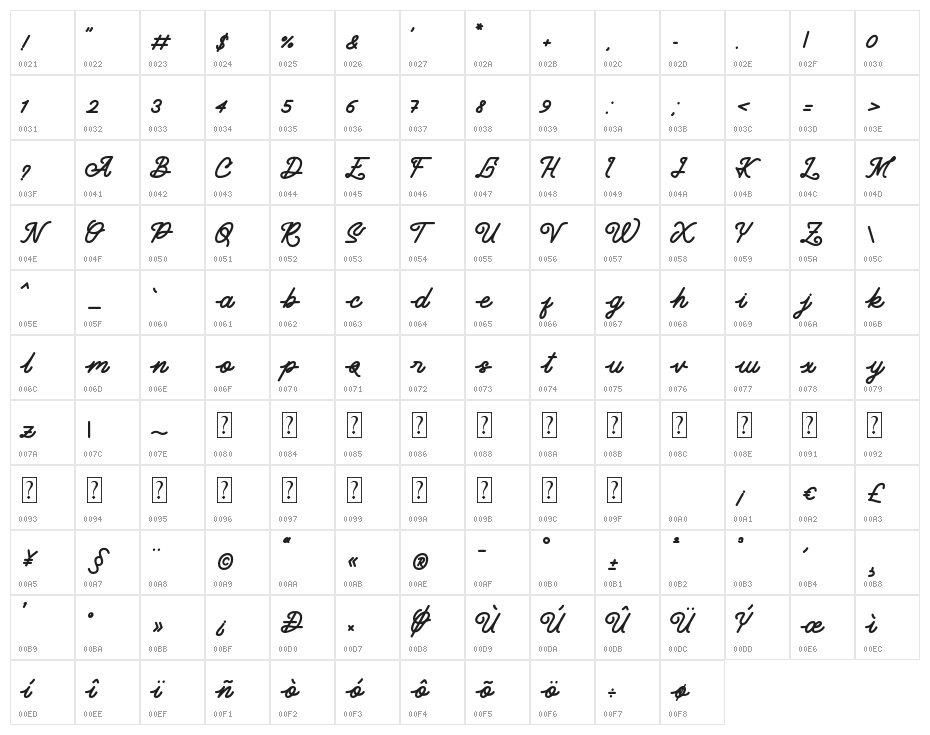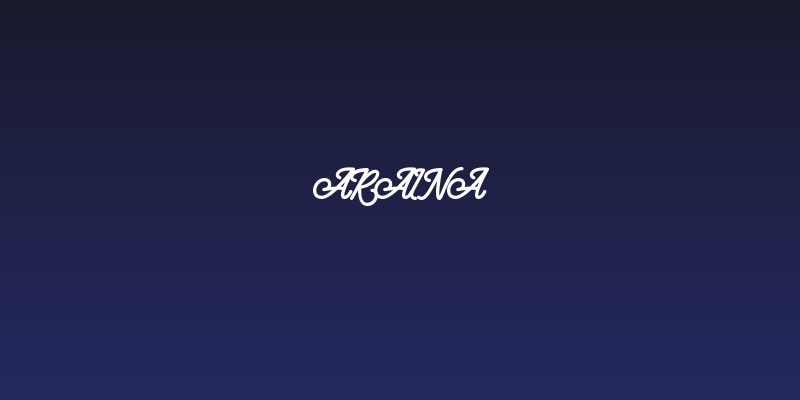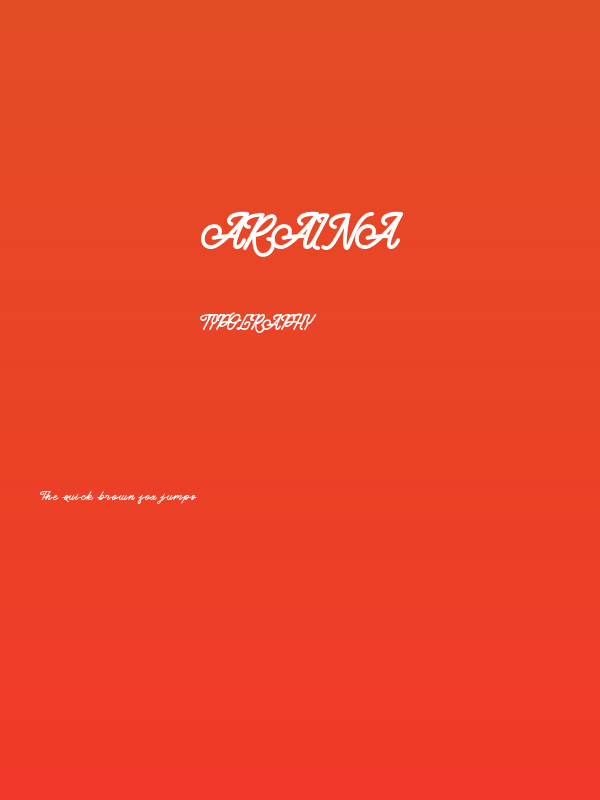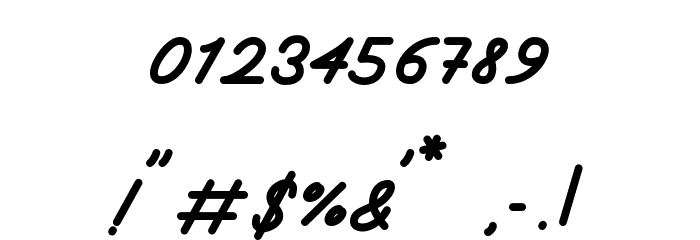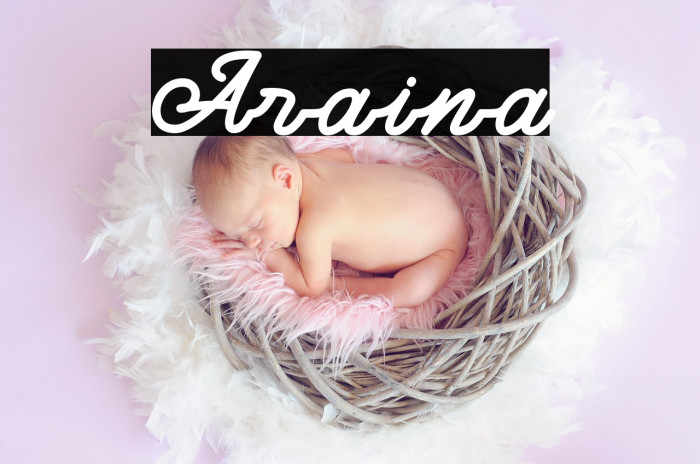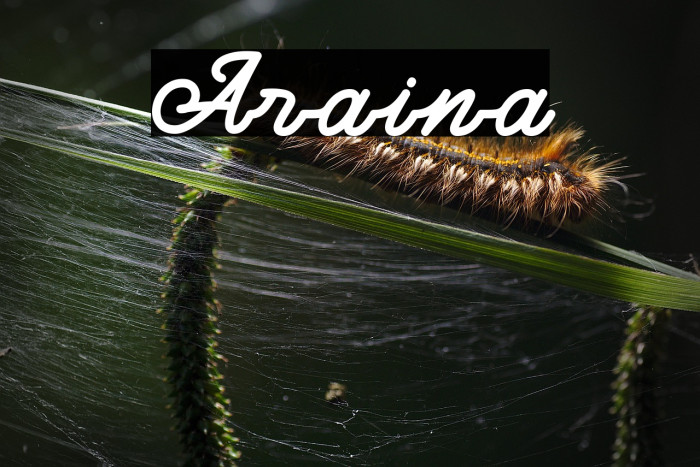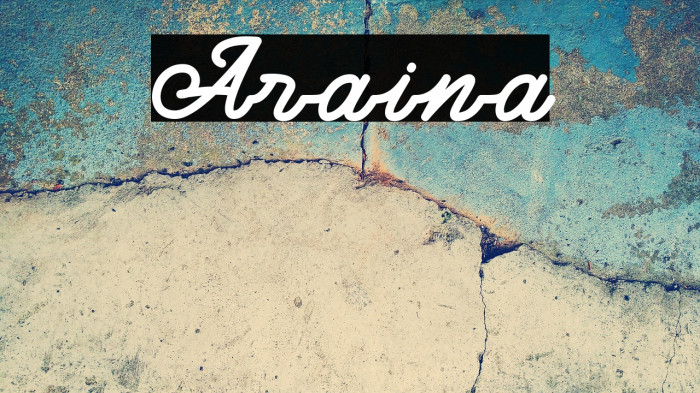
Araina Font
Araina Description
This font exhibits a classic cursive style with a flowing, elegant appearance. The letters are interconnected, creating a seamless and continuous script that mimics traditional handwriting. The uppercase letters are ornate, with flourishes that add a touch of sophistication, while the lowercase letters maintain a consistent flow. The numerals and special characters are designed to complement the overall script style, ensuring uniformity across all characters. The font's design is both decorative and functional, making it suitable for a variety of creative applications.